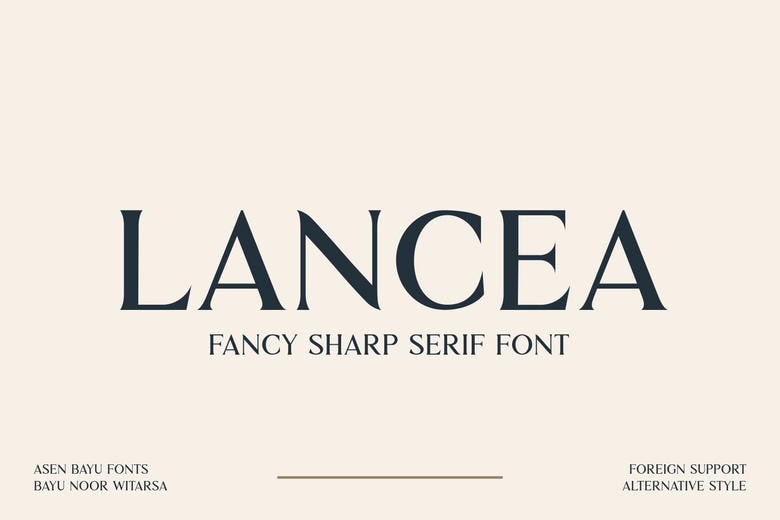
Lancea Font
Lancea is an elegant sharp Serif font. Lancea is derived from the medieval roman writing style mixed with the sharpness of a lance, thus this name is very sophisticated and sleek and clean accent. Lancea can be used for different purposes including luxury brand identity, magazines, cards, headings, post, social media and much more. This font is PUA encoded which essentially means you can use all the glyphs and the alternations effortlessly!
Lancea Serif Font